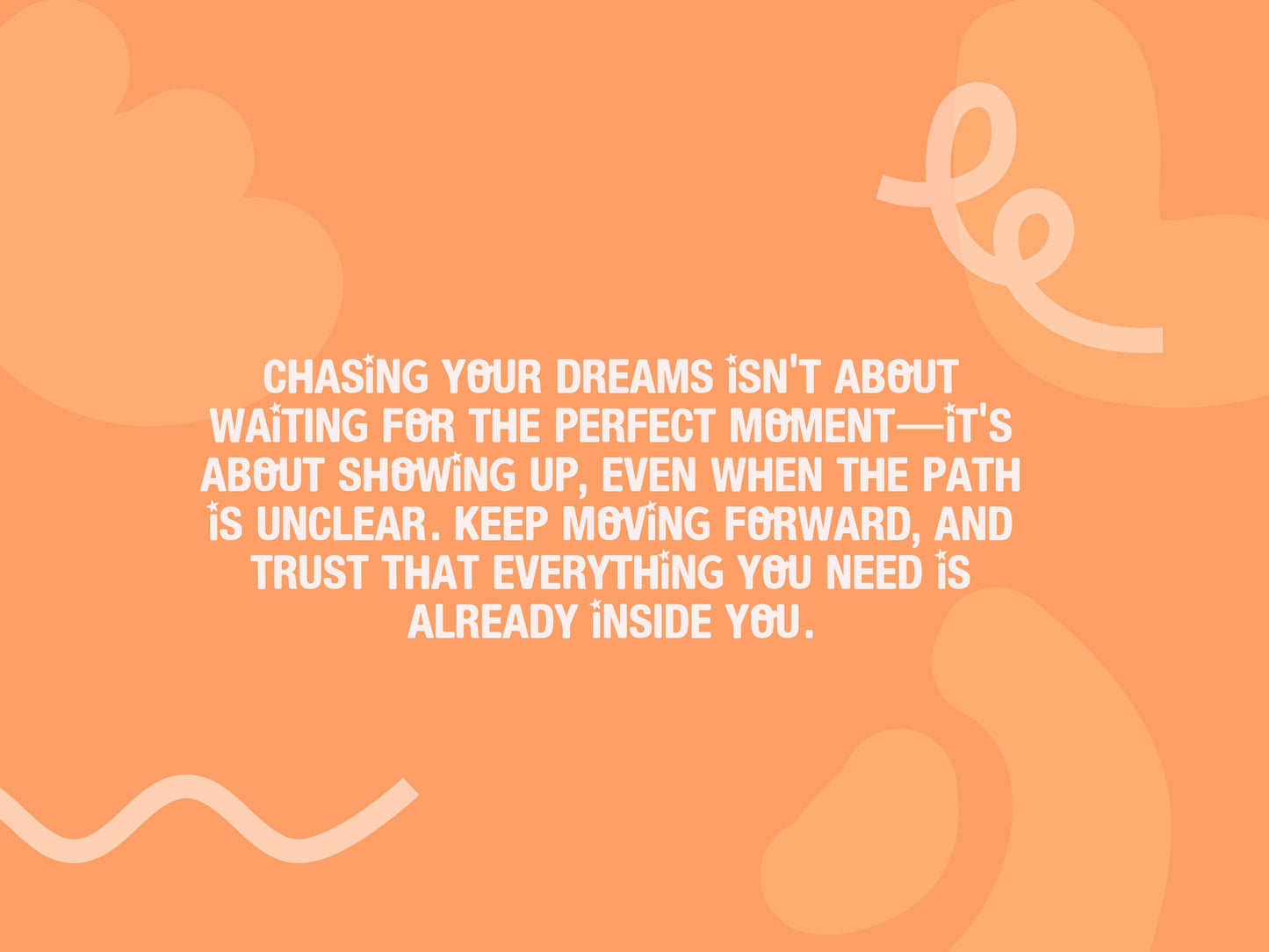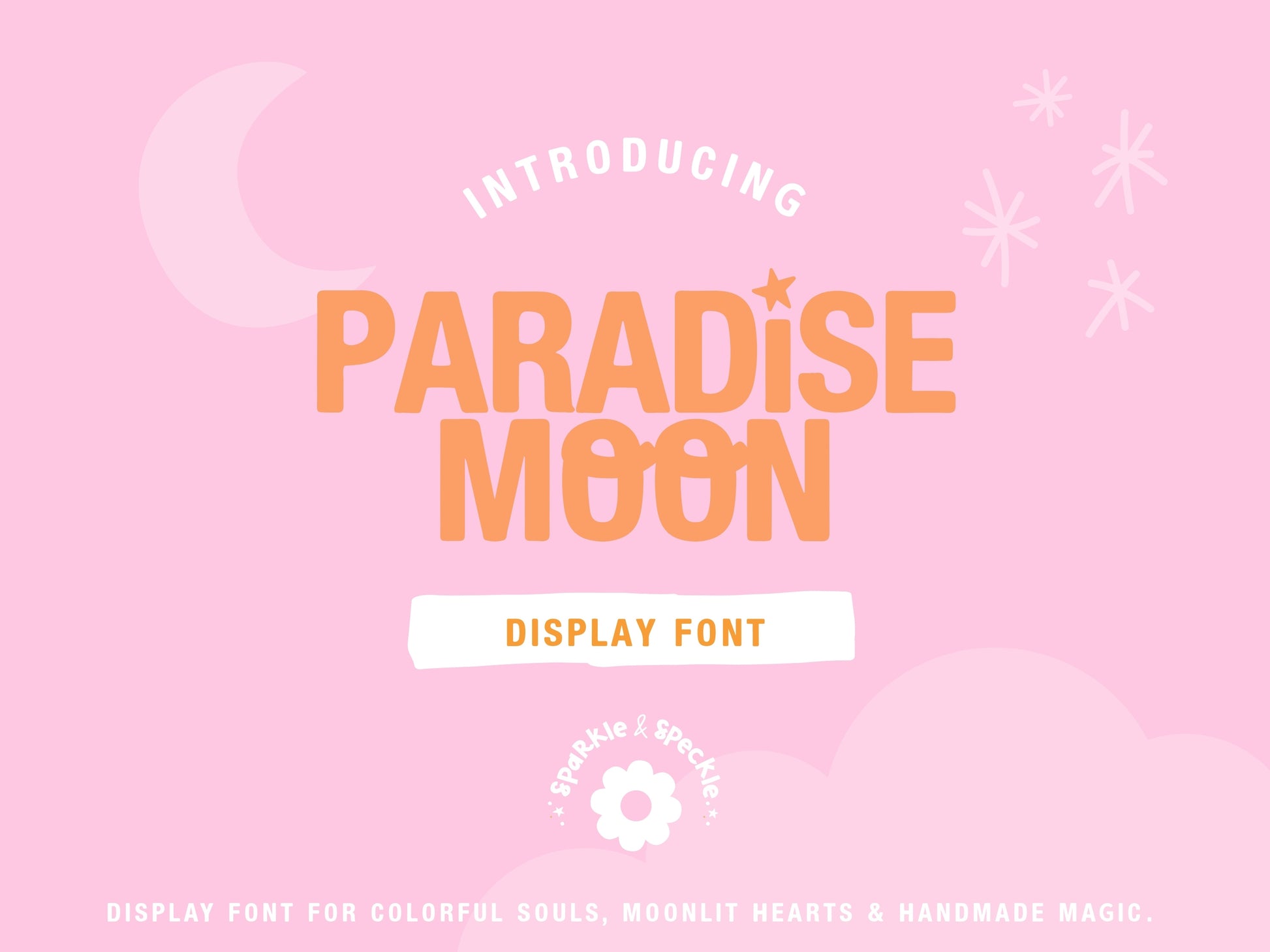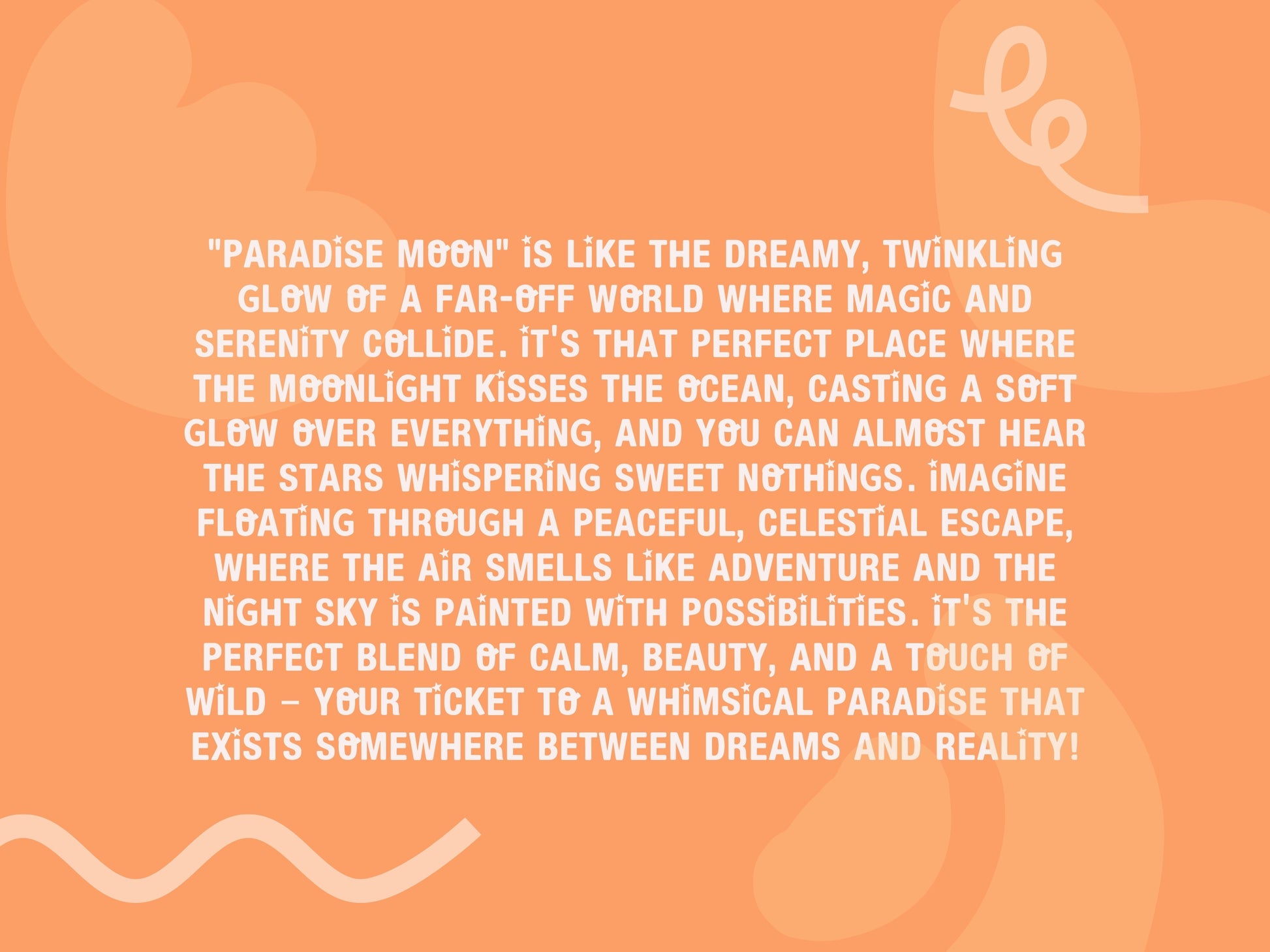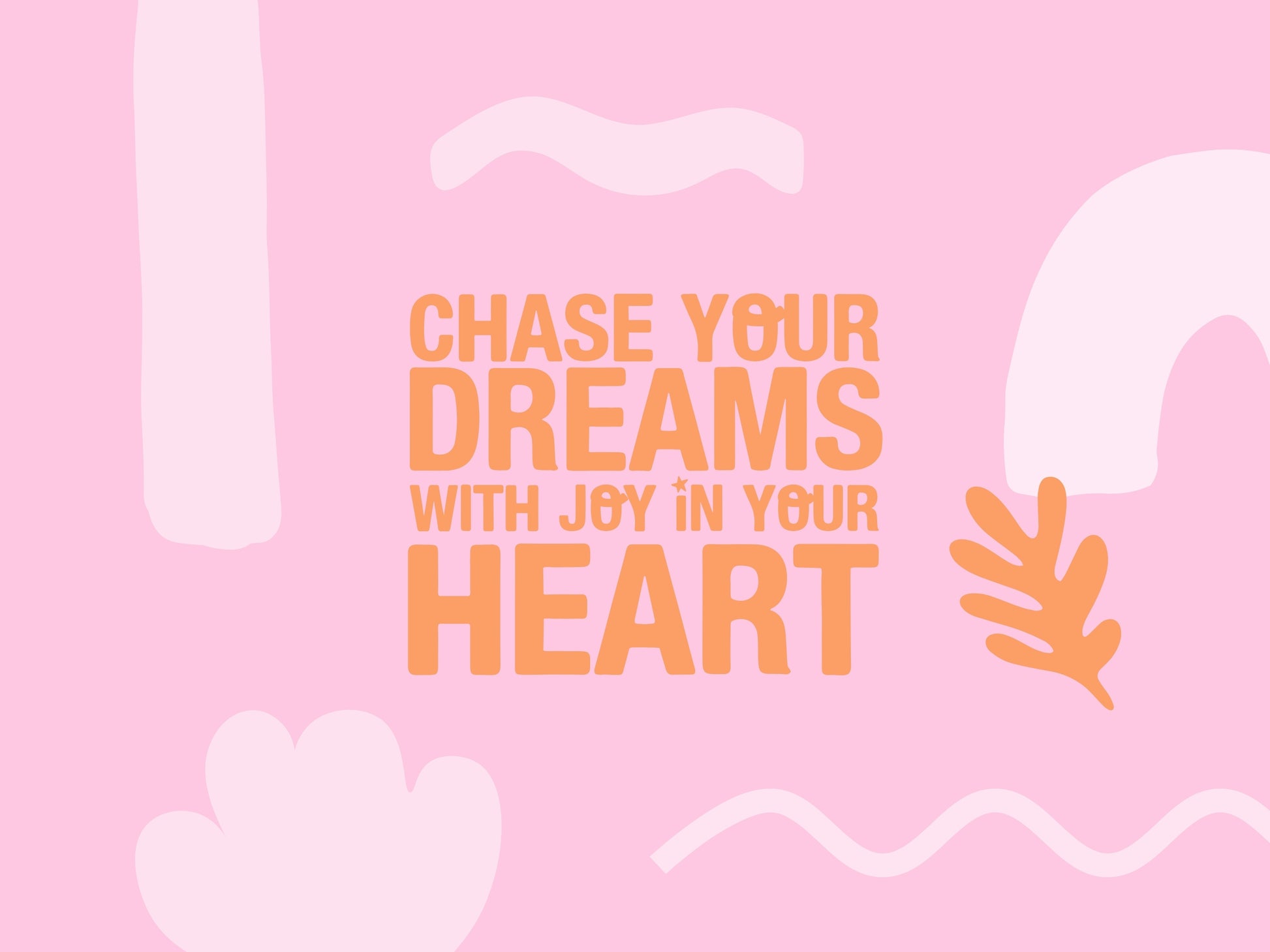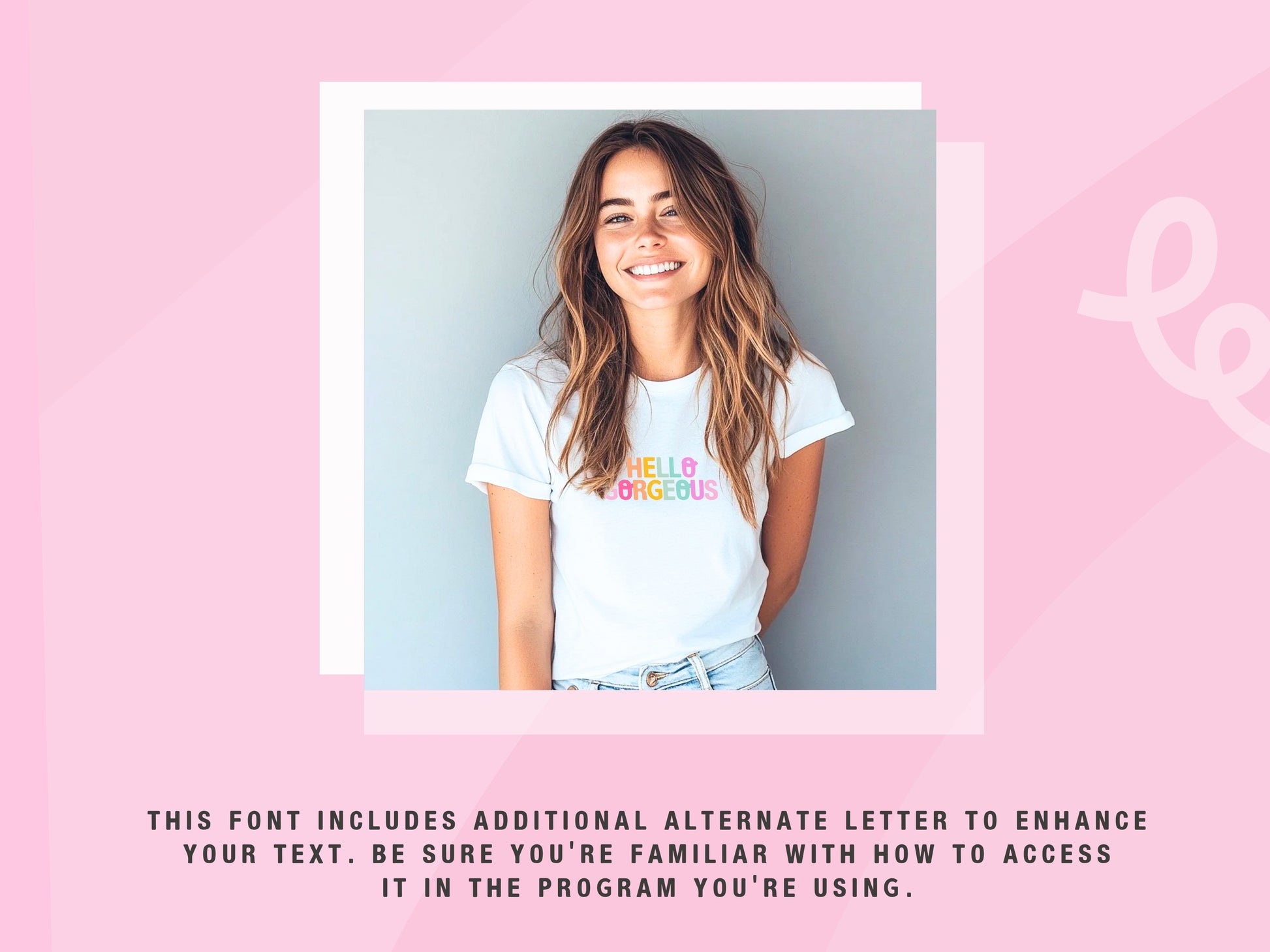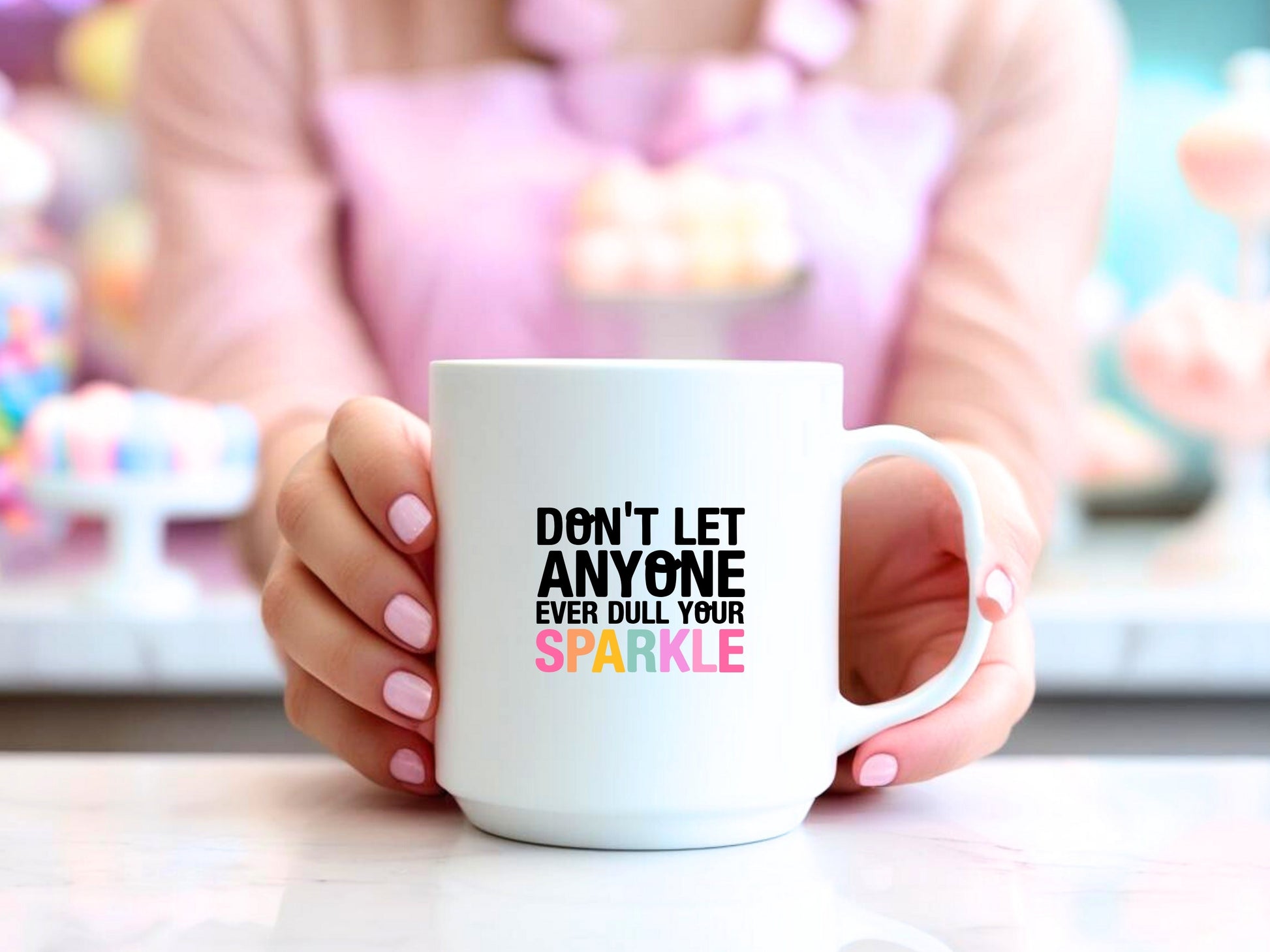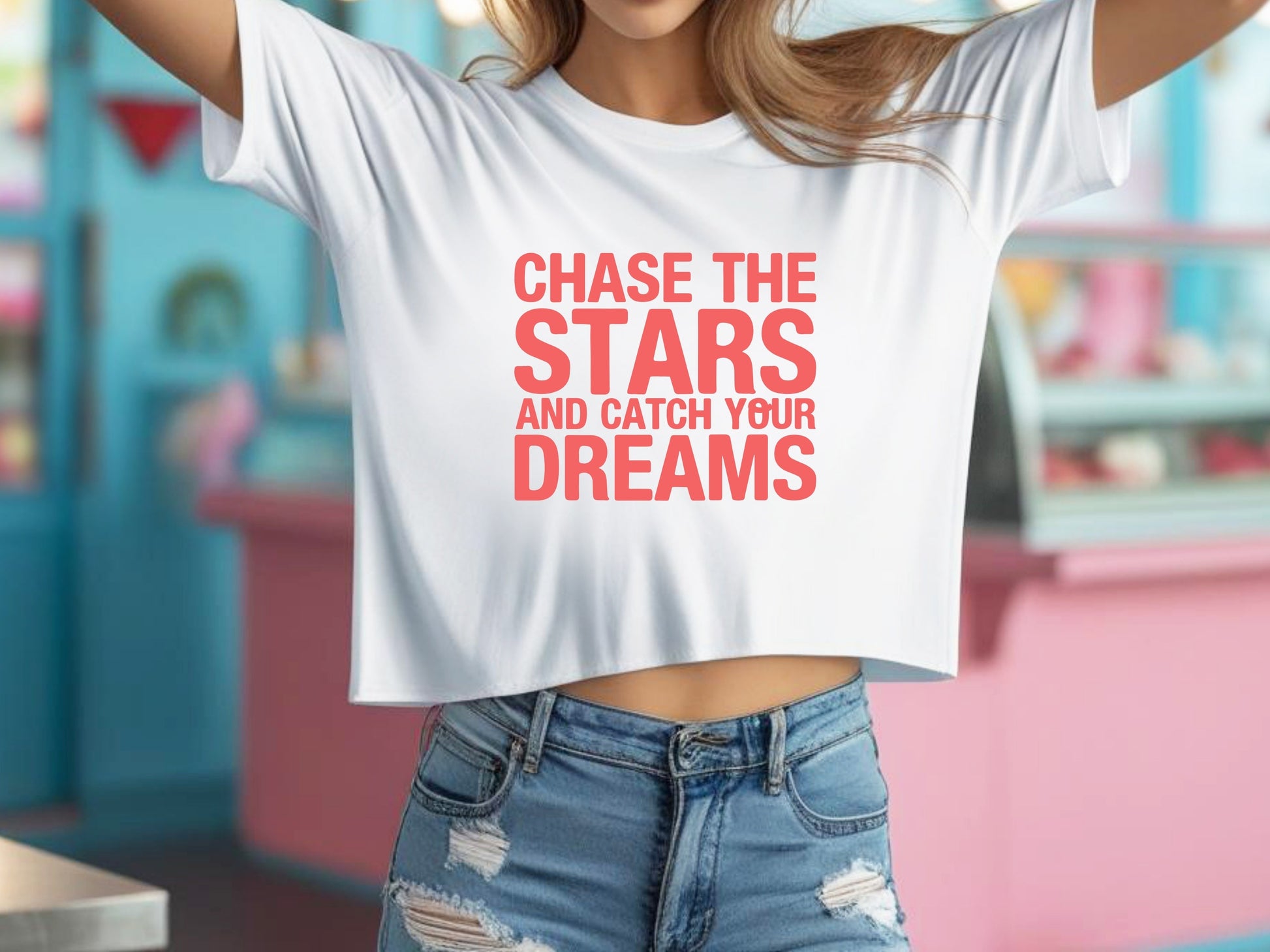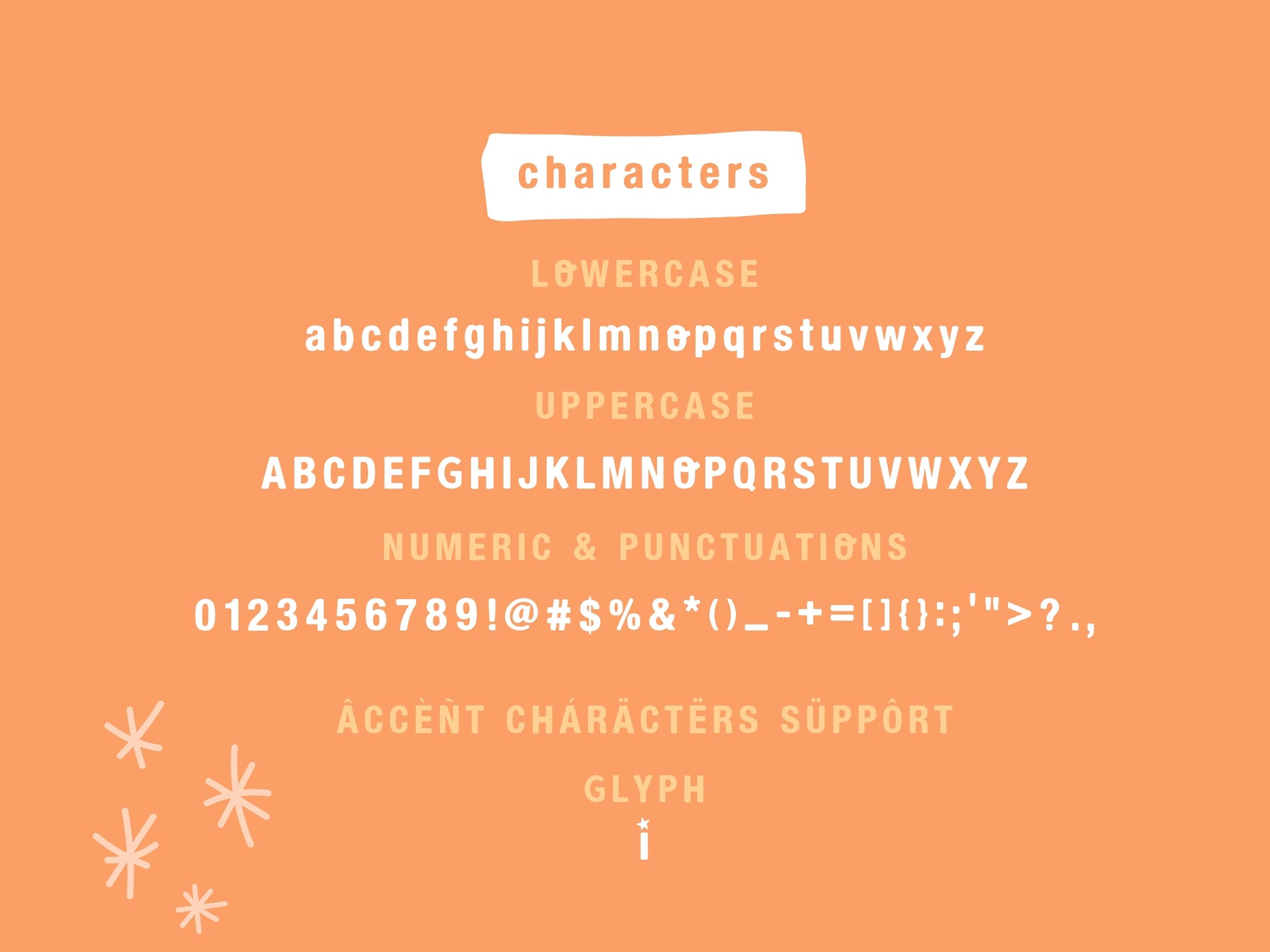
Paradise Moon Font: Bold Display Typeface with Star Detail
Introducing “Paradise Moon” – A playful, bold elegant, creative display modern font. Smooth, rounded corners font that add a touch of charm to every design. The letter "o" with a distinctive shape that adds personality to your words and makes your text come to life. The letter "i" featuring a tiny, sparkling star perched above it, adding a delightful twinkle to your words. Perfect for everything from DIY craft design, logos, branding, planners, school projects to joyful invitations. Paradise Moon blends sleek, clean lines and balanced letterforms with a fun, expressive personality. It's the ideal choice for designs that need to shine with character and a little touch of magic!
* Not every letter will have an alternate version—only certain letters do.